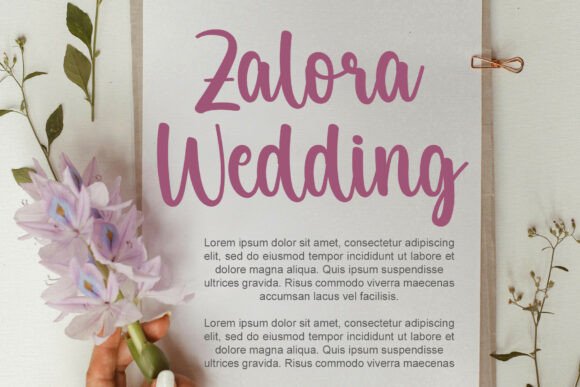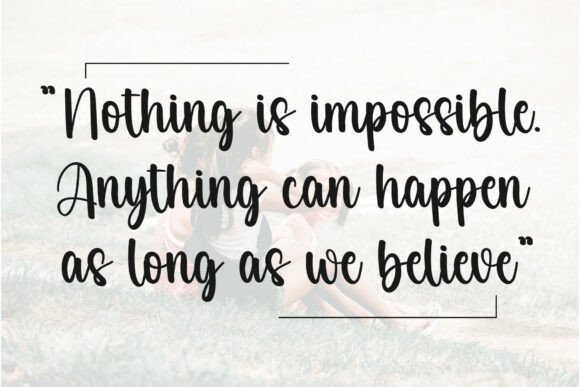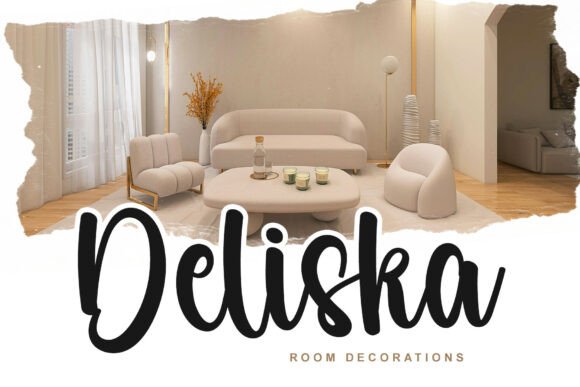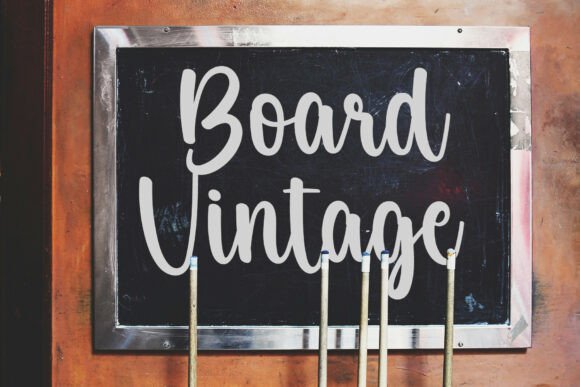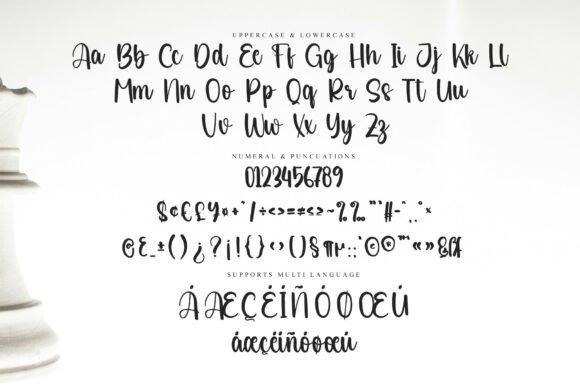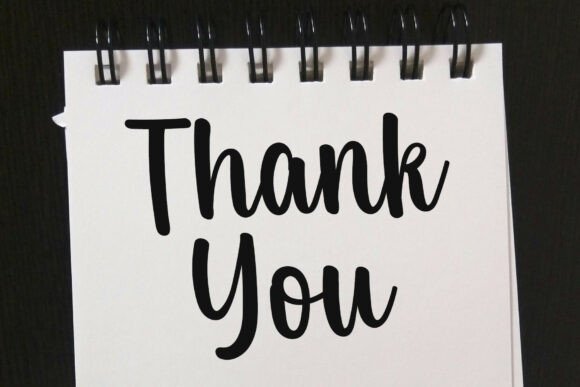
Introducing Atitude Font: Elevate Your Designs with Elegance and Charm
In the world of typography, a well-crafted font can make all the difference in transforming a design from ordinary to extraordinary. For designers and crafters looking for a touch of sophistication and elegance, Atitude Font is an exceptional choice. This beautifully crafted handwritten script font exudes charm and refinement, making it perfect for a variety of creative projects.
The Essence of Atitude Font
Atitude Font is a stunning example of an elegant script font, designed to bring a personal and refined touch to any design. Its fluid, natural strokes are reminiscent of handwritten script, while its sophisticated style ensures it remains versatile and highly legible. Whether you’re working on branding, invitations, logos, or stylish packaging, Atitude Font is an ideal choice.
Key Features of Atitude Font
• Handwritten Script Style: Atitude boasts a beautiful, handwritten script style that adds a personal touch to any design.
• Elegant and Refined: The font’s fluid strokes and sophisticated style make it perfect for projects requiring an elegant look.
• Versatile: Suitable for a wide range of applications, from branding and logos to invitations and packaging.
• Easy to Read: Despite its elegant style, Atitude remains highly legible, making it practical for various uses.
Use Cases for Atitude Font
The versatility of Atitude Font makes it suitable for numerous design projects. Here are some popular use cases:
• Branding and Logos: Create a memorable brand identity with a logo that stands out. Atitude Font’s elegant style is perfect for bakery logos, boutique brands, and more.
• Invitations and Greeting Cards: Add a touch of romance and sophistication to wedding invitations, birthday cards, and other greeting cards.
• Packaging Design: Elevate your product packaging with a stylish and refined font that captures the essence of your brand.
• Social Media Graphics: Use Atitude Font to create engaging social media graphics that reflect your brand’s personality.
Tips for Using Atitude Font
To get the most out of Atitude Font, consider the following tips:
• Pair with Complementary Fonts: Combine Atitude Font with sans-serif fonts for a modern contrast or with serif fonts for a classic look.
• Adjust Letter Spacing: Fine-tune the letter spacing to ensure optimal readability and aesthetic appeal.
• Experiment with Colors: While Atitude Font looks stunning in black, don’t hesitate to experiment with colors that match your brand’s palette.
Atitude Font is a beautifully crafted handwritten script font that brings elegance and charm to any design project. Its versatile nature, combined with its refined and sophisticated style, makes it an excellent choice for designers and crafters looking to elevate their work. Whether you’re creating branding materials, invitations, logos, or packaging, Atitude Font is sure to leave a lasting impression.
Discover the potential of Atitude Font and transform your designs with its unique blend of elegance and charm. Perfect for those seeking an elegant script font that exudes sophistication, Atitude is ready to enhance your creative projects.